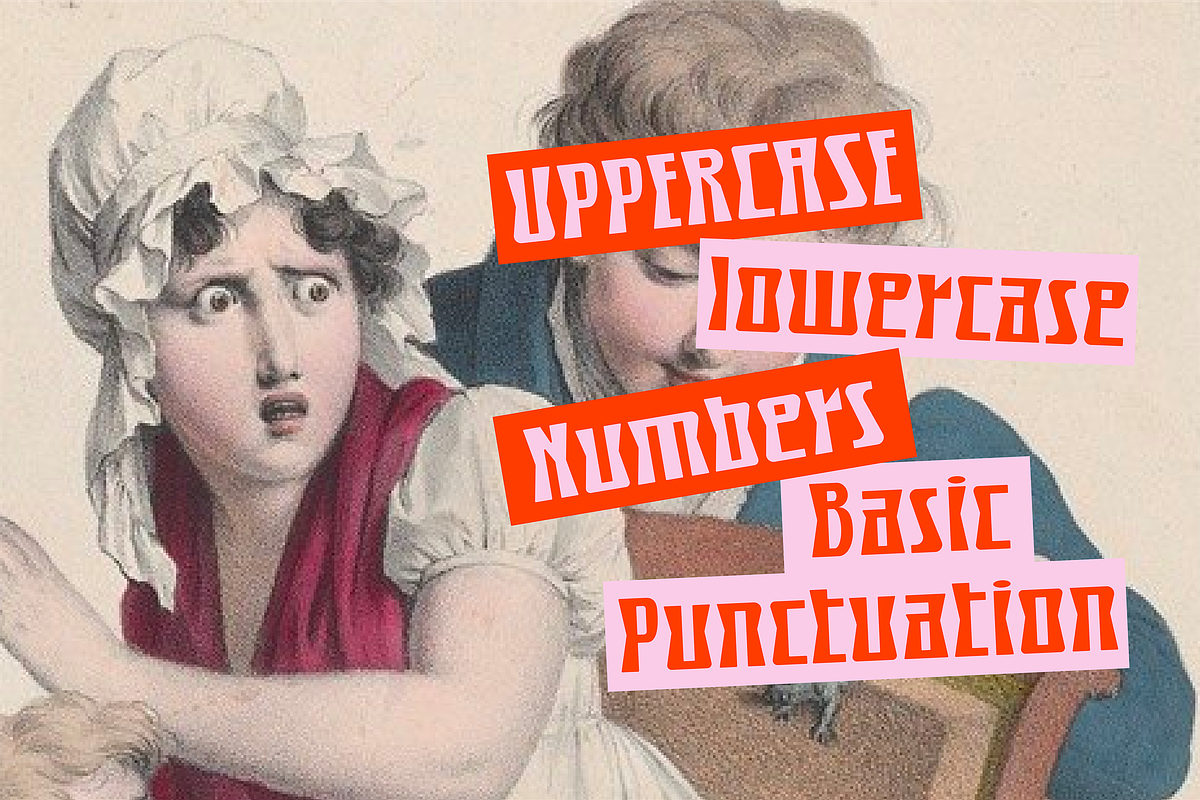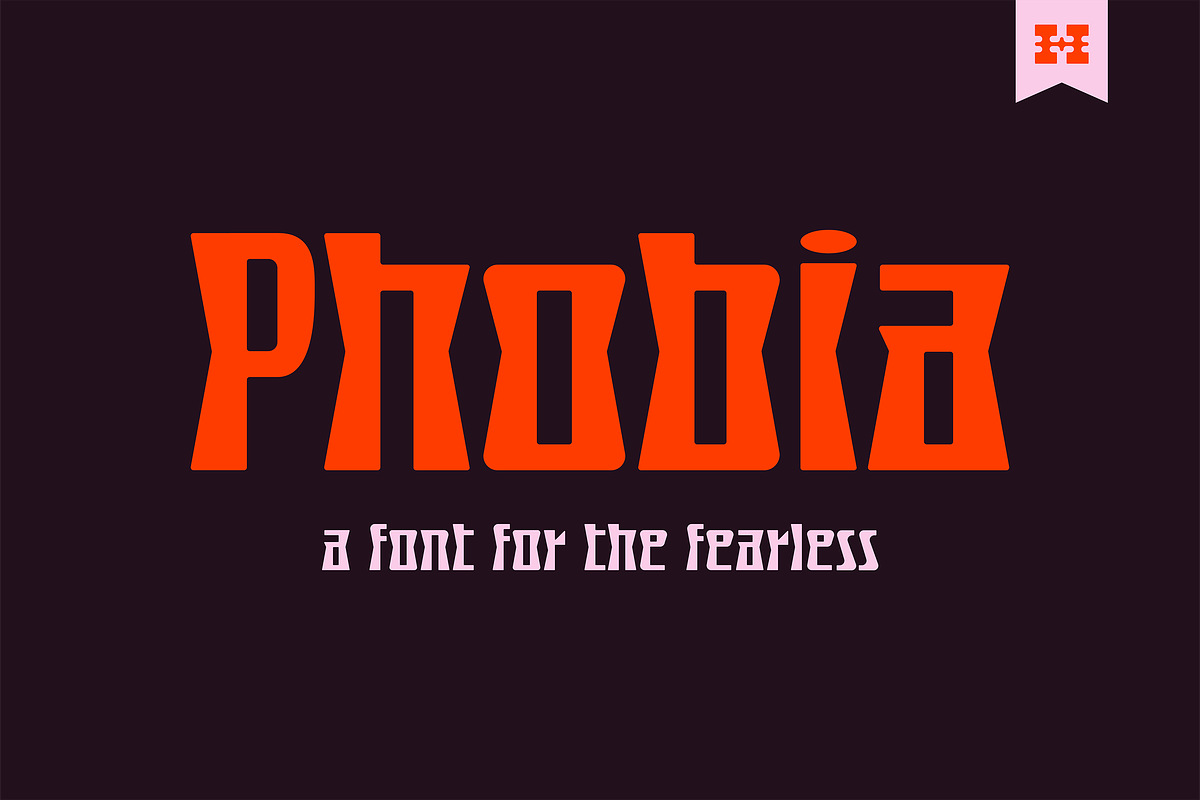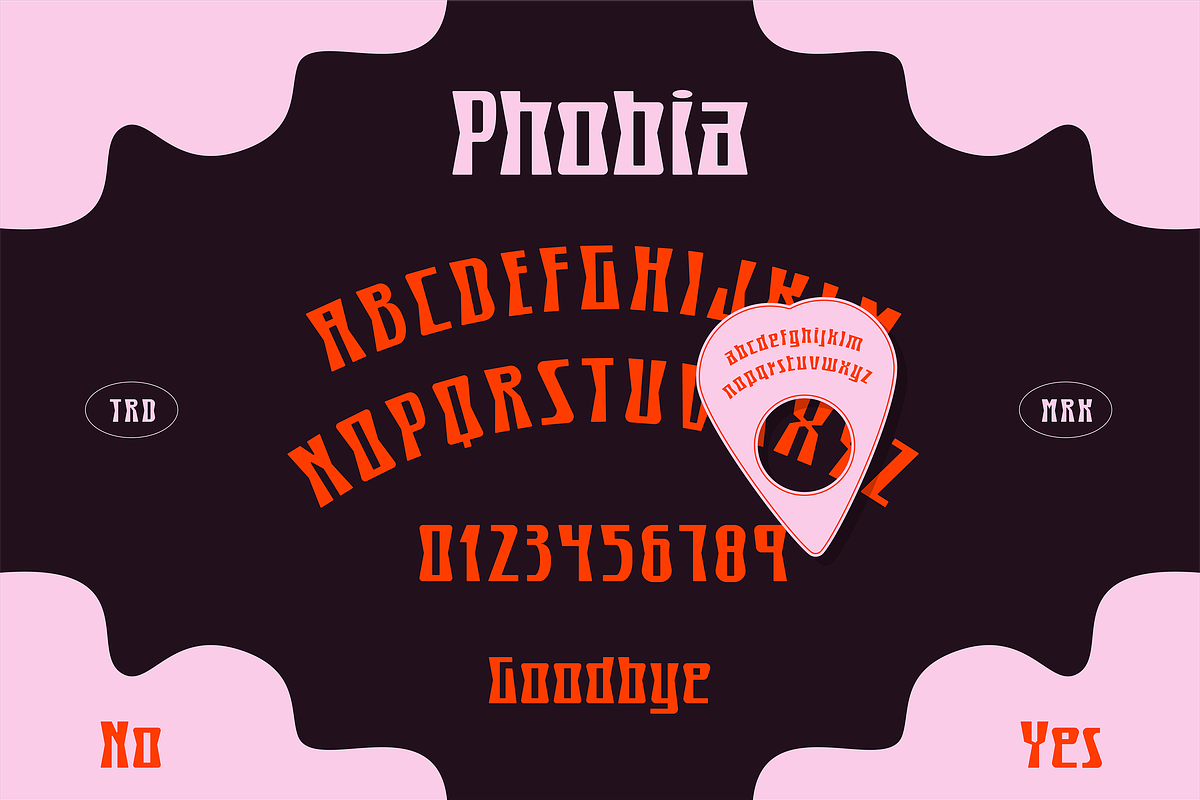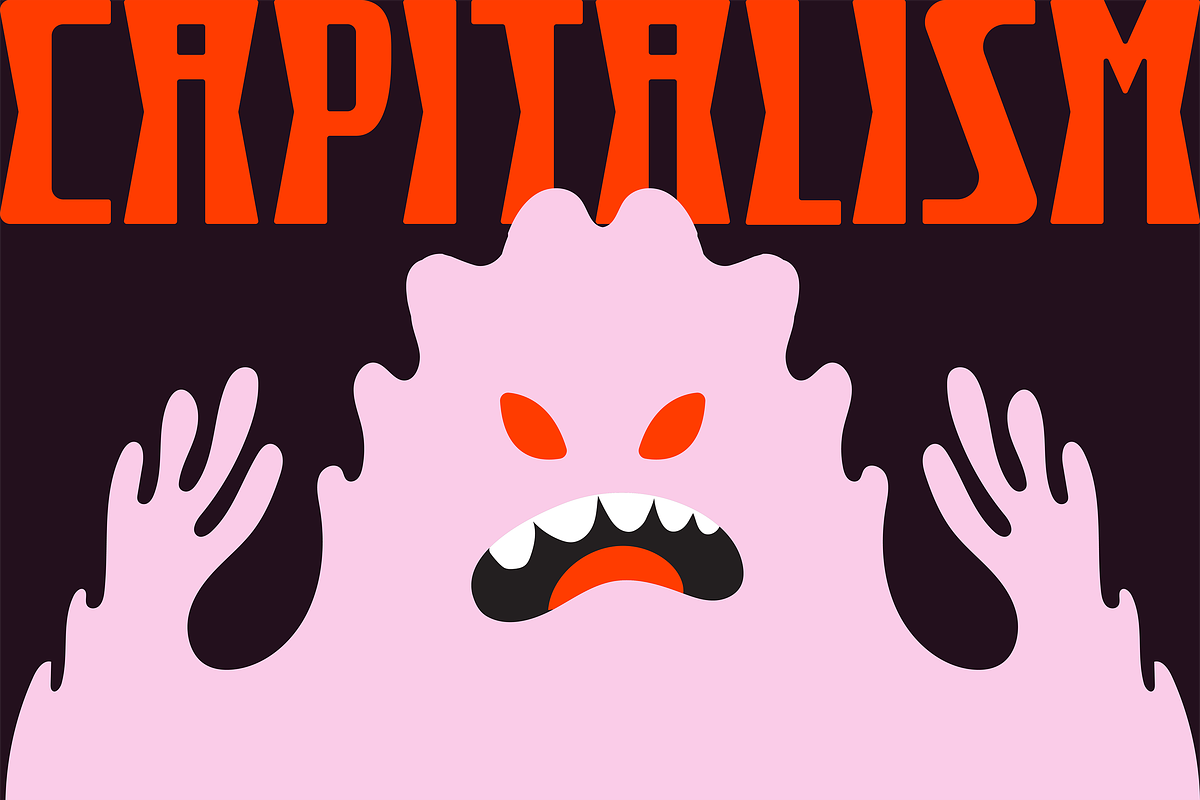
Phobia Display - For the Fearless
Phobia, a font for the fearless! This display typeface is designed with uppercase, lowercase, numerals and basic punctuation. Get spooky with it. From your friendly neighborhood font dealer, Hank Makes.